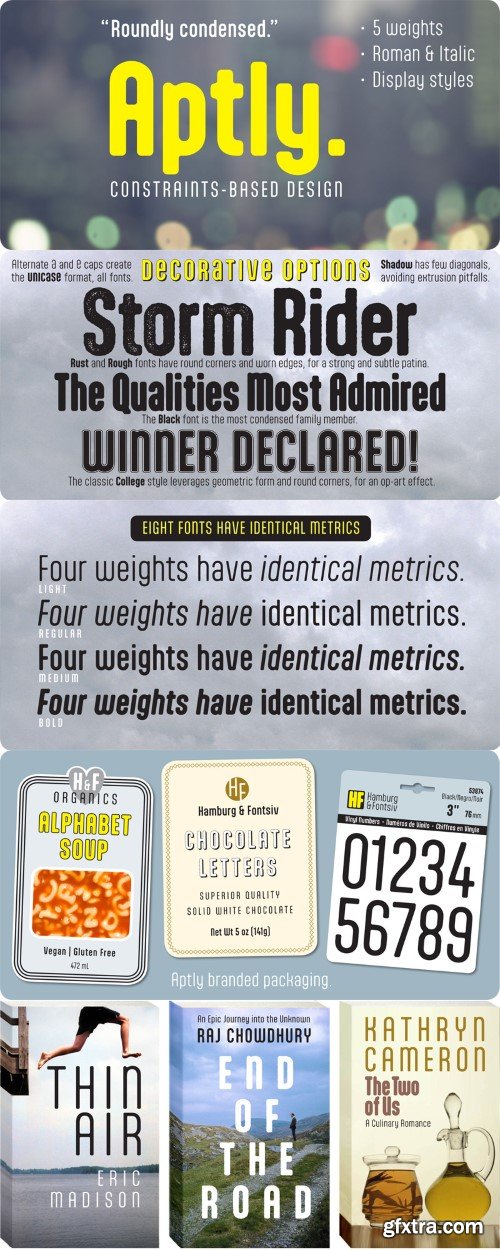
阿泼利字体家族
A liminal work, Aptly focuses on the condition in which humanity may be expressed under the normalizing constraints of technocratic systems. To this end, Aptly’s design space is posited as an array of severe constraints which demand an aesthetic resolution. The resolving concept is “Geo-Soft”, characters being constructed almost entirely from arcs of circle connected by or-thogonal straight lines, with few diagonals and nary a sharp corner—as if words are being routed by a bit of fixed dimension. The effect has an engaging tension, with soft edges offsetting rigorous structure, as if words are simultaneously melting and compiling. Working this conceptual tem-plate, Shinn fashions a cool, elemental and timeless repose.